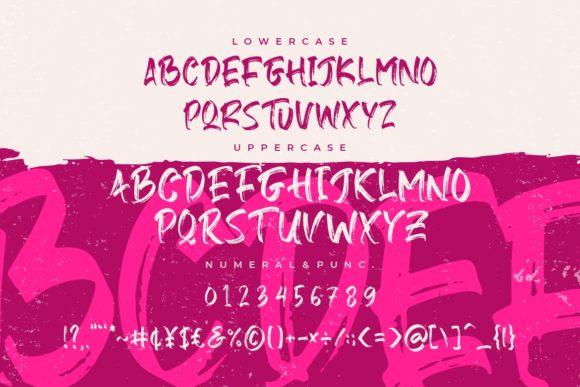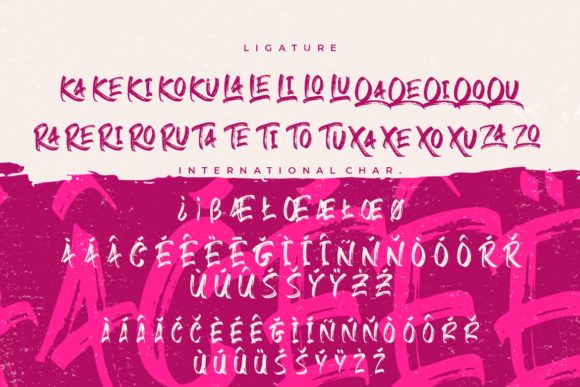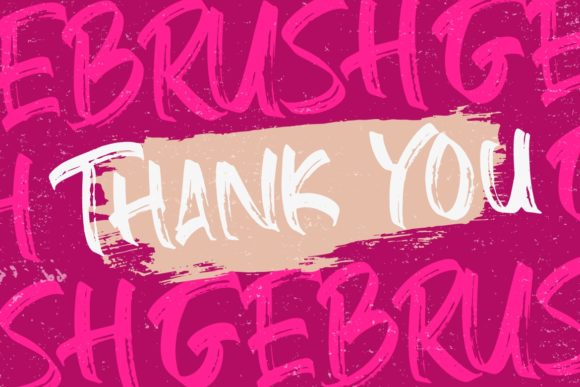
About Gebrush Font
Gebrush is a bold and playful handwritten font that brings a lively and personalized touch to your crafting projects. With its unique letterforms and bold strokes, Gebrush adds a sense of fun and creativity to your designs.
This font is perfect for any project that requires a personalized and handmade feel. Whether you’re creating greeting cards, scrapbook pages, party invitations, or any other crafting project, Gebrush will add a touch of character and uniqueness to your designs.
Gebrush stands out with its bold and energetic appearance, making it ideal for creating eye-catching headlines and titles. The thick and dynamic strokes of the letters give your text a strong visual impact, ensuring that your message gets noticed.
The PUA encoding of Gebrush allows for easy access to all the glyphs and swashes available with the font. This means you can effortlessly add decorative elements, swashes, and alternative characters to enhance the visual appeal of your designs. Customizing and personalizing your typography becomes a breeze, giving you the freedom to create truly unique and engaging artwork.
This font is designed to maintain legibility even at smaller sizes, ensuring that your text remains clear and readable. Whether you’re using Gebrush for captions, subheadings, or smaller text elements, it will maintain its bold and playful style without sacrificing clarity.
Gebrush also allows for creative experimentation and combination with other fonts. Its bold and fun nature pairs well with a variety of complementary typefaces, enabling you to achieve visually balanced and harmonious compositions.
In summary, Gebrush is a bold and fun handwritten font that brings a personalized and handmade look to your crafting projects. Its PUA encoding ensures easy access to a wide range of glyphs and swashes, allowing for customization and embellishment. Whether you’re creating greeting cards, scrapbook pages, or any other crafting project, Gebrush adds a lively and energetic touch that will make your designs stand out.